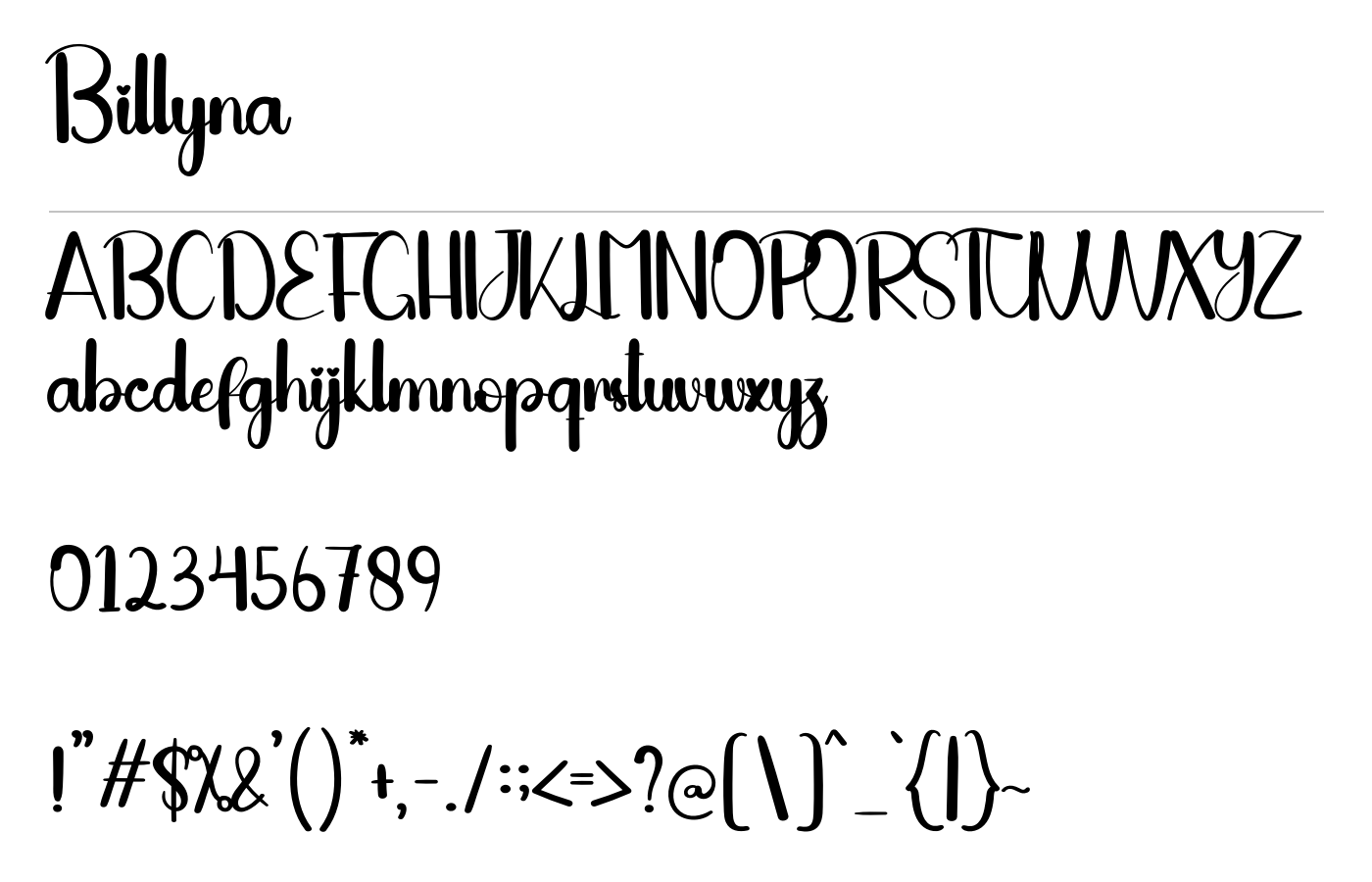
Billyna is a playful and casual handwritten sans serif font characterized by its tall, narrow letterforms and smooth, rounded strokes with varying weights. It features distinctive loops and curls that give it a friendly, informal vibe, making it ideal for creative projects, branding, and social media use that seek a warm and approachable feel. This font works well in headlines, logos, or packaging where a unique and personal touch is desired.
Billyna Font
About Billyna Font